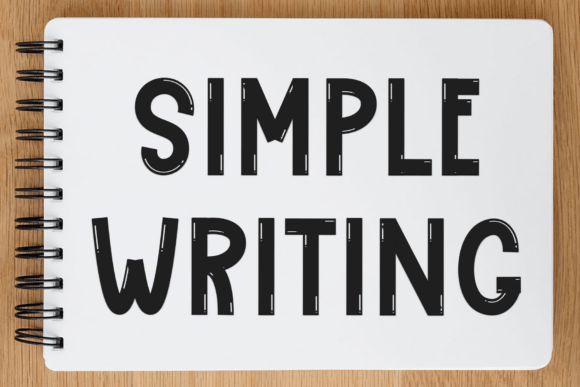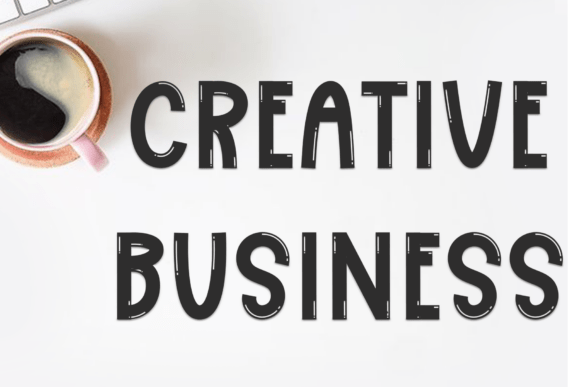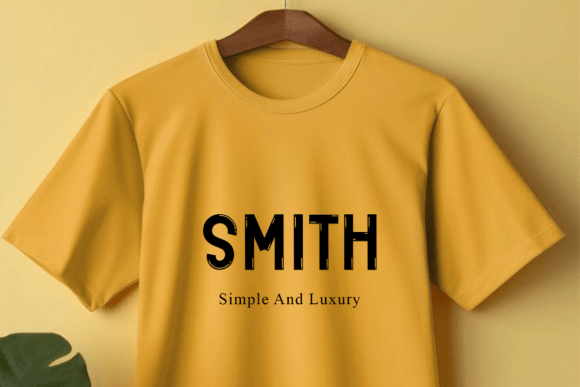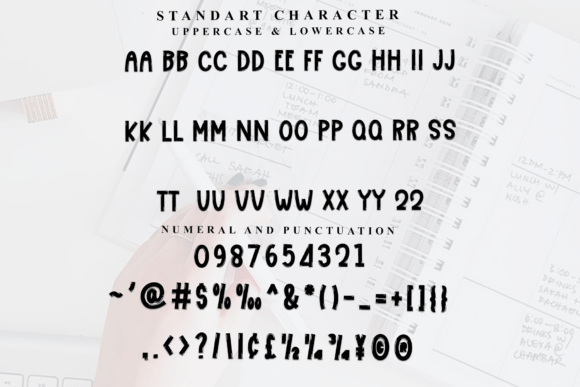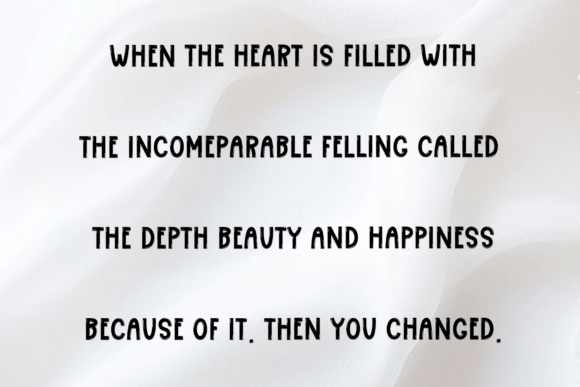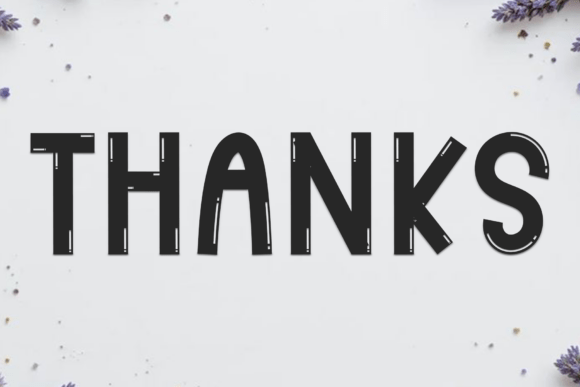
Introduction to Conten Creator Font
Imagine you’re brainstorming a new creative project, pouring over design ideas and perfecting your concept. The moment you finally land on the perfect visual identity – it’s a rush of excitement and satisfaction. But, let’s be real, the real magic happens when you have the right tools to bring your vision to life. That’s where the Conten Creator Font comes in – a high-impact, authoritative display font designed to elevate your digital storytelling.
This modern typeface is a game-changer for designers, offering a unique blend of style and functionality. With its bold, vertically elongated letterforms and organized vertical rhythm, the Conten Creator Font is perfect for creating eye-catching headers, titles, and banners that demand attention. And, with its subtle “glimmer” cutouts, you can add a touch of professional visual depth to your designs – all without sacrificing quality or readability.
Key Features of Conten Creator Font
- High-quality design resource ideal for creative projects and designs
- Unique characteristics and styling make it perfect for modern designs and creative projects
- Includes a comprehensive character set, including uppercase and lowercase letters, numbers, and punctuation
Honest Review: Conten Creator Font
As a designer, I’m always on the lookout for high-quality design resources that can elevate my creative projects. I recently had the chance to work with the Conten Creator Font, and I’m excited to share my honest review.
- ✨ High-quality design: The Conten Creator Font has a crisp, clean design that’s perfect for modern creative projects.
- ✨ Transparent background: The font has a transparent background, making it easy to use in design projects that require a high level of customization.
- ⚠️ Limited character set: The Conten Creator Font has a limited character set, which may not be suitable for projects that require a wide range of characters.
- ⚠️ Not ideal for large text: Due to its modern design, the Conten Creator Font may not be the best choice for projects that require large amounts of text.
Tips for Getting the Most Out of Conten Creator Font
Use the font in combination with other design resources to create a cohesive and high-quality design. Experiment with different font sizes, colors, and styles to find the perfect look for your creative project.
The Conten Creator Font is perfect for creating social media graphics, blog posts, and presentations. It’s also great for use in business cards, brochures, and other marketing materials.